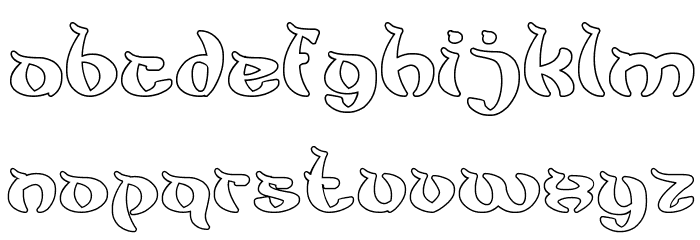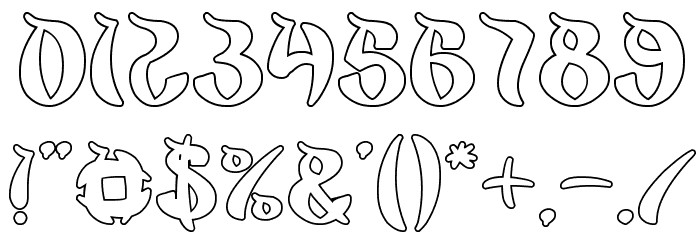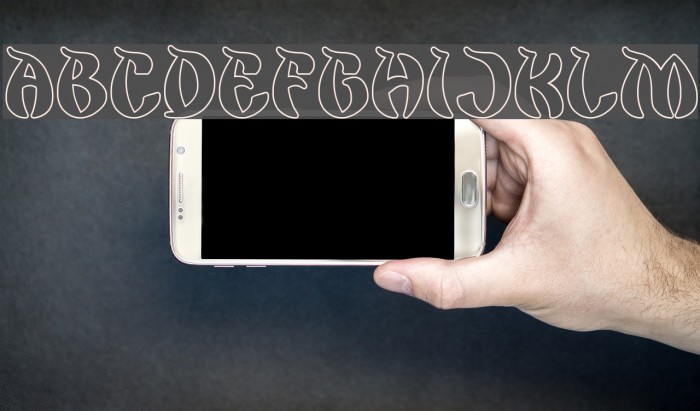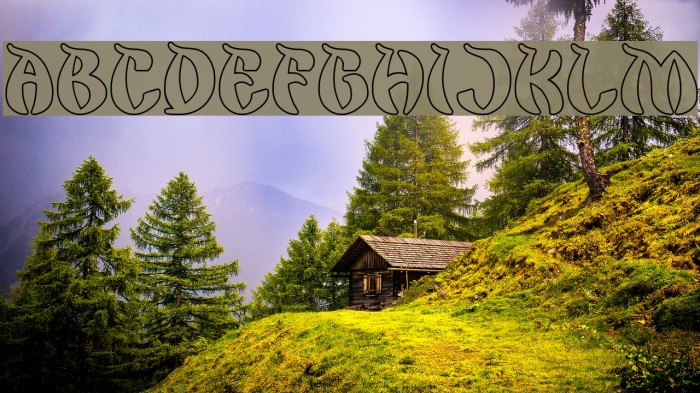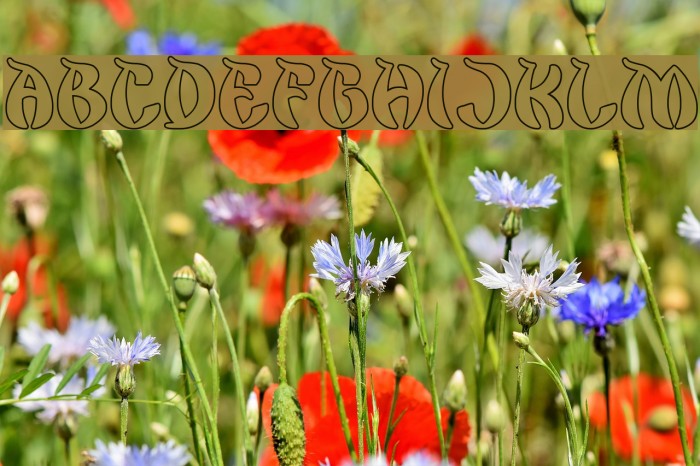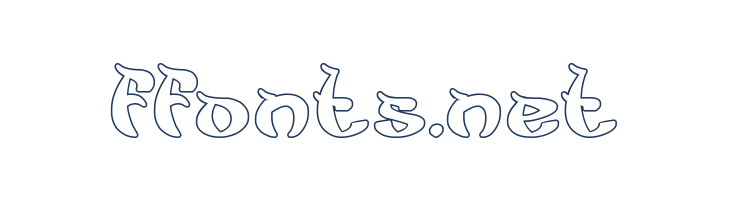
King Cobra-Hollow Font
This font features a unique, hollow design with a decorative flair, characterized by its bold, curvy lines and intricate shapes. Each letter is outlined, creating a striking visual effect that stands out. The uppercase and lowercase letters maintain a consistent style, with the uppercase being slightly more pronounced. Numbers and special characters follow the same design principles, ensuring a cohesive look across all elements. The font's playful and artistic nature makes it ideal for creative projects that require a distinctive and eye-catching appearance.
A decorative, hollow font with bold, curvy outlines and a playful style.
- Proposed Projects: Ideal for posters, logos, album covers, and any project needing a bold, artistic touch.
- Use Case: Logos, Posters, Album covers